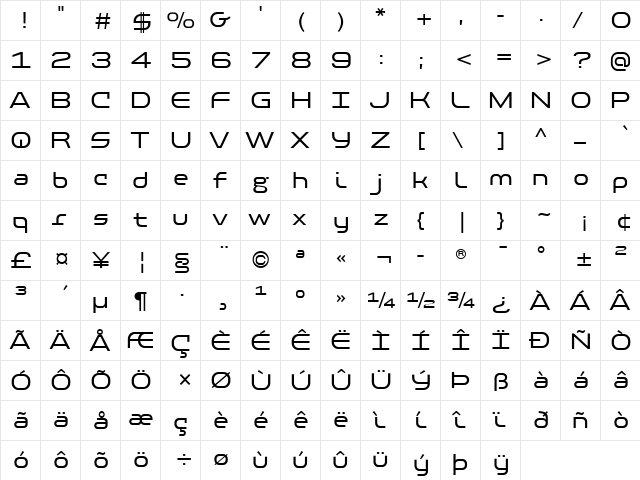
PF Baseline Pro Regular
DesignerPanos Vassiliou
Design Context for PF Baseline Pro Typeface
PF Baseline Pro takes a measured approach to typography — its balanced proportions and neutral character make it a reliable workhorse for both digital and print work.